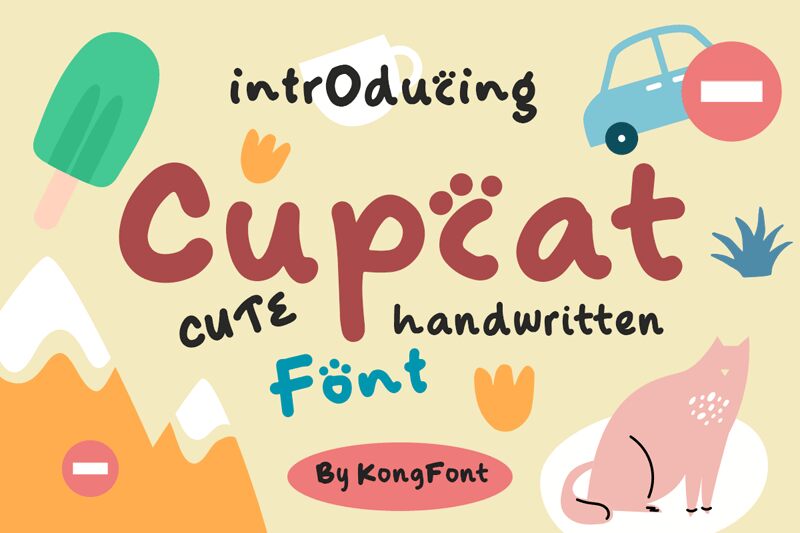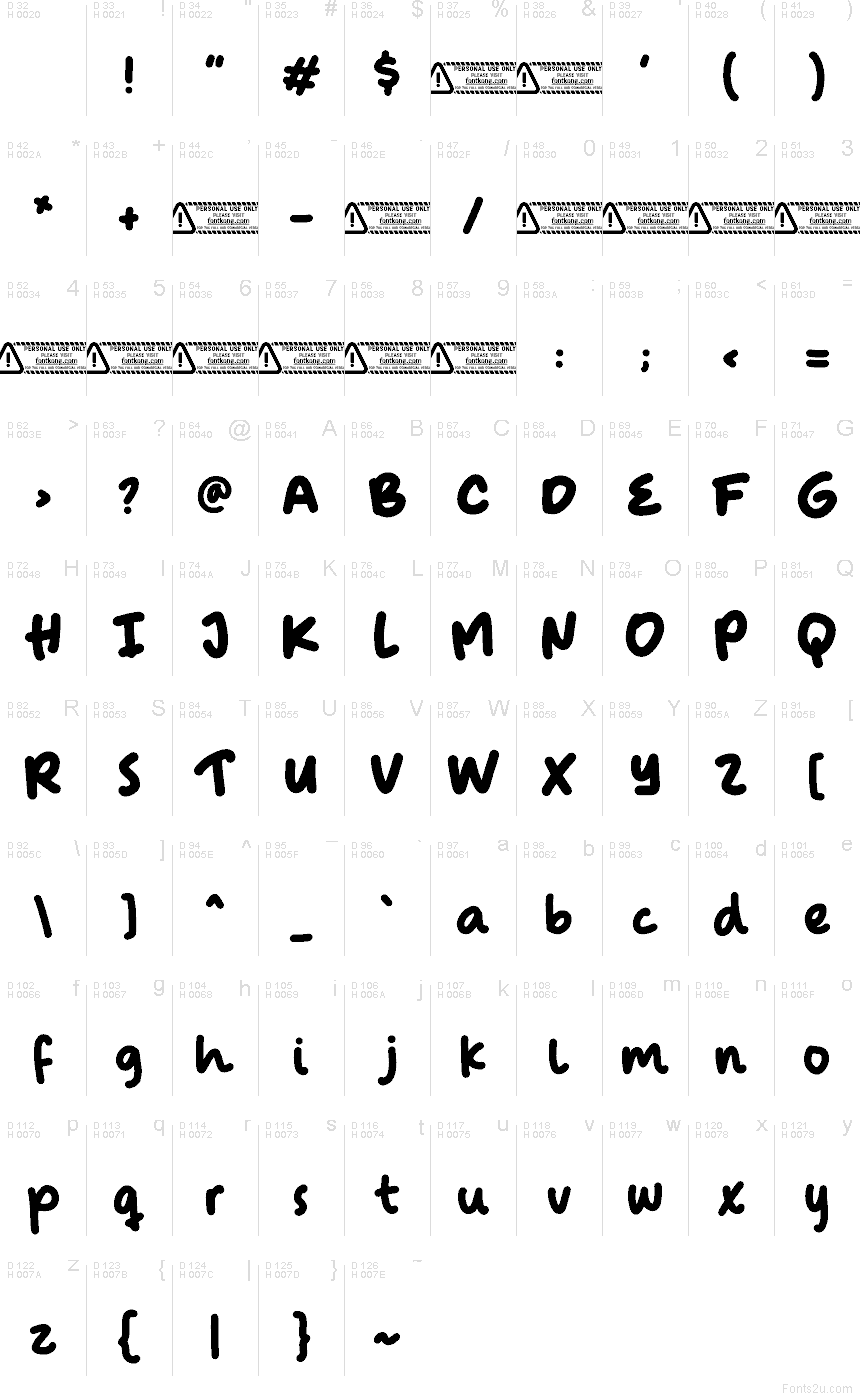
Cupcat font by Kong Font is a free handwritten typeface that feels like it was drawn with a soft, inky marker on a café chalkboard. The rounded strokes, loose rhythm, and slightly bouncy line give it a warm, friendly energy that’s casual without getting messy. It reads cleanly at medium sizes, with chunky forms that feel plush and approachable rather than sharp or formal.
Using Cupcat, your lettering instantly takes on a cozy, home-baked charm that shines on bakery logos, kids’ book covers, party invitations, social media graphics, product packaging, and playful quote posts. This free font works beautifully when set large for headlines, then paired with a simple sans serif for small supporting text to keep everything clear and readable.